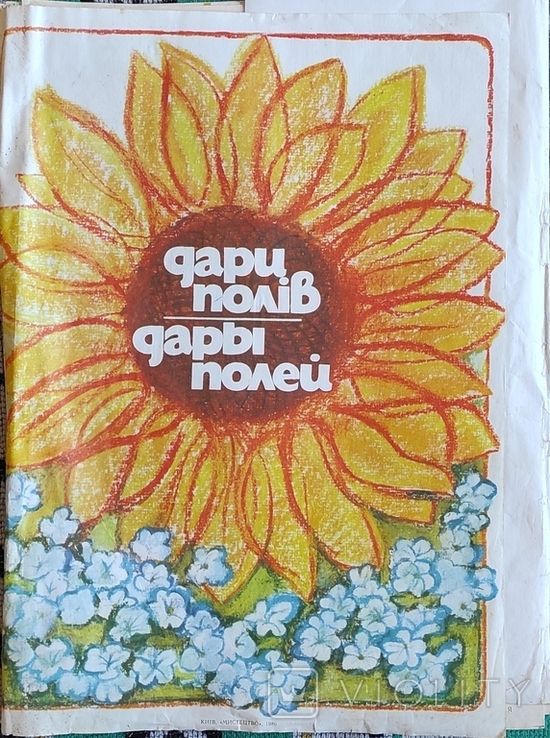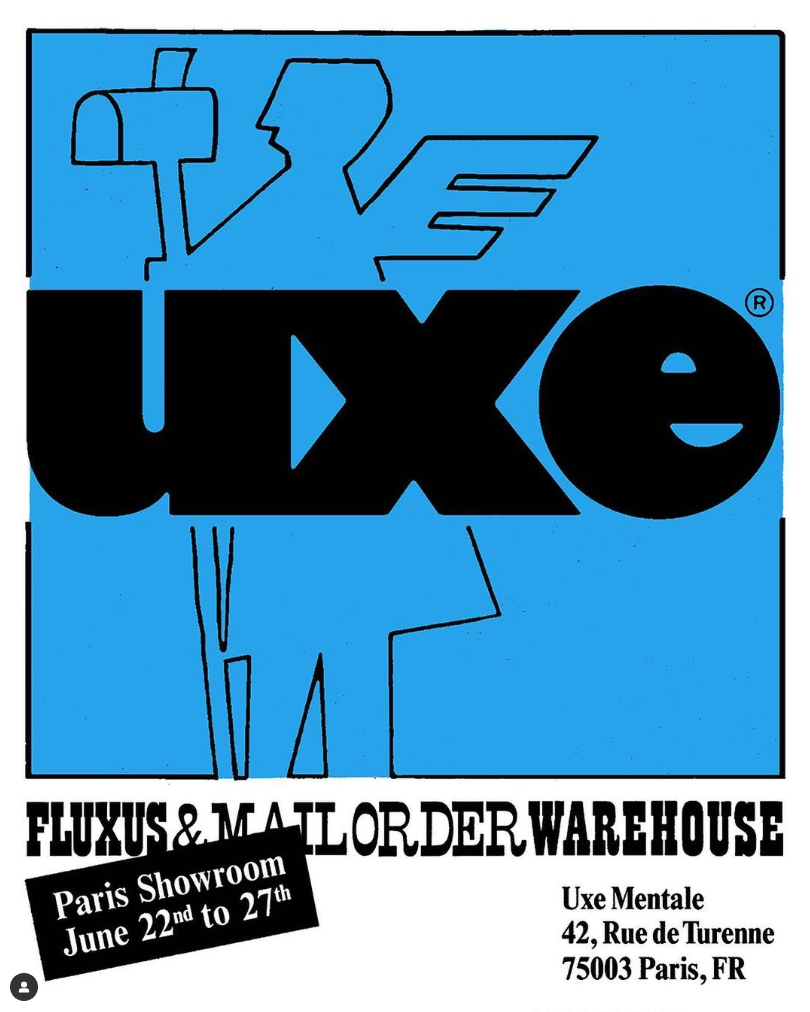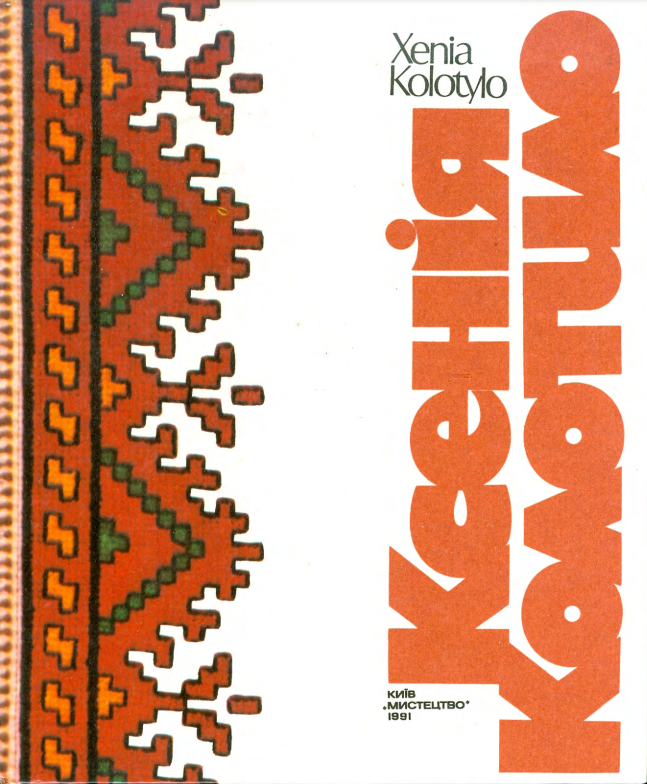
KTF Olivier is based on a font called «Оливье» found in a book «Шрифты для художников-оформителей» («Fonts for design artists») issued in Minsk in 1979. This was a handbook for Soviet designers, featuring many fonts, most of which were drawn by the author himself, Rygor Klikushyn.
Klikushyn was an outstanding figure in Belarusian art, a multifaceted man who lived a long and interesting life. He graduated from theatre school in the late 1930s, where, among other things, he taught himself to play the piano, and was then called up to the front as a cartographer and telegrapher and fought in World War II until the end, leaving behind numerous diaries that include maps of the battles he drew. After the war, he taught at the Viciebsk Institute of Art and Graphics.
He was very interested in foreign art and always bought American and English magazines when possible. His daughter tells us that once he used a typewriter to reproduce a book by one of the unpopular foreign authors in the Soviet Union and gave copies to his acquaintances. At the time the typewriter was considered an ideological weapon, and Klikushyn was summoned to the KGB, accused of anti-Soviet propaganda and questioning his right to teach young people. He had to leave the institute and was banned from leaving the USSR until its collapse. In Klikushyn’s books (there were plenty of it through the 1970s-1990s) you can find a lot of his Cyrillic interpretations of the up-to-date Western fonts like Shotgun, Countdown, Davida, Jackson, Aki Lines among others.
The shapes of KTF Olivier remind you of the classic Gill Kayo (1932), but their differences are also what makes it hauntological to the post-Soviet eye. Olivier pays tribute to the enthusiastic redrawing and cyrillization of well-known fonts behind the iron curtain. In this way, countless no-name lettering and model alphabets were created. КТФ Олів'е Репліка is a reconstruction of such a source. Limited to Cyrillic only, it was made by Alex Chumak in 2021 for a music video by Kate NV and mastered by Yevgen Anfalov. In turn, KTF Olivier (made by Yevgen Anfalov) takes a few letters, numbers and overall proportions of it's ancestor and becomes something new. Another telephone game in the spirit of KTF, please welcome КТФ Олів'е Репліка and KTF Olivier.
- Announcement poster for Uxe Mentale for the opening of the brand’s showroom in Paris (2022)
- This album is dedicated to the work of Ksenia Kolotylo, a distinguished Ukrainian master of artistic embroidery who spent many years living and working in Austria. Kyiv “Mystetstvo" (1991).
- Cover of the book "Gifts of the Fields", published by the Kyiv publishing house “Mystetstvo” (1980).